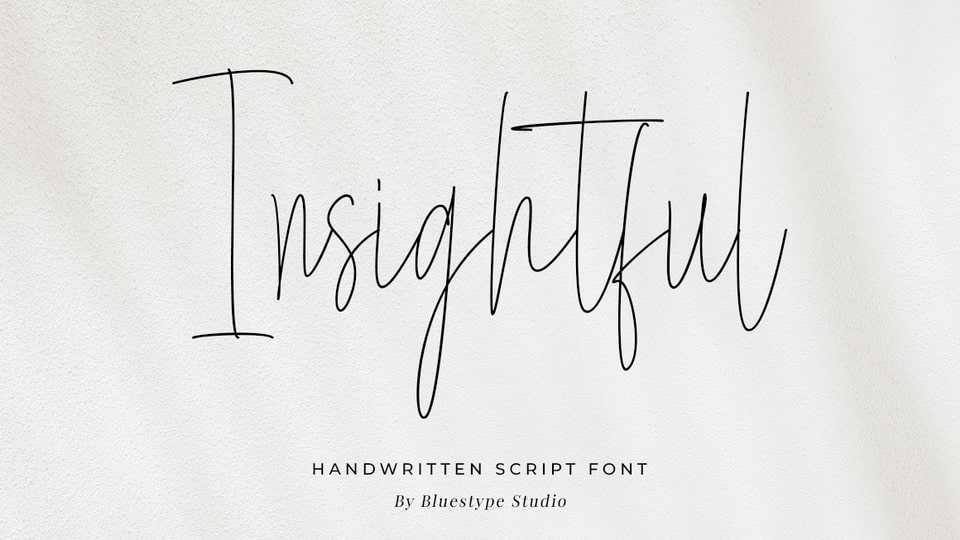
Download Insightful. font, a script that embraces the organic beauty of handcrafted elegance. Inspired by nature’s effortless grace, this font captures the essence of natural handwriting.